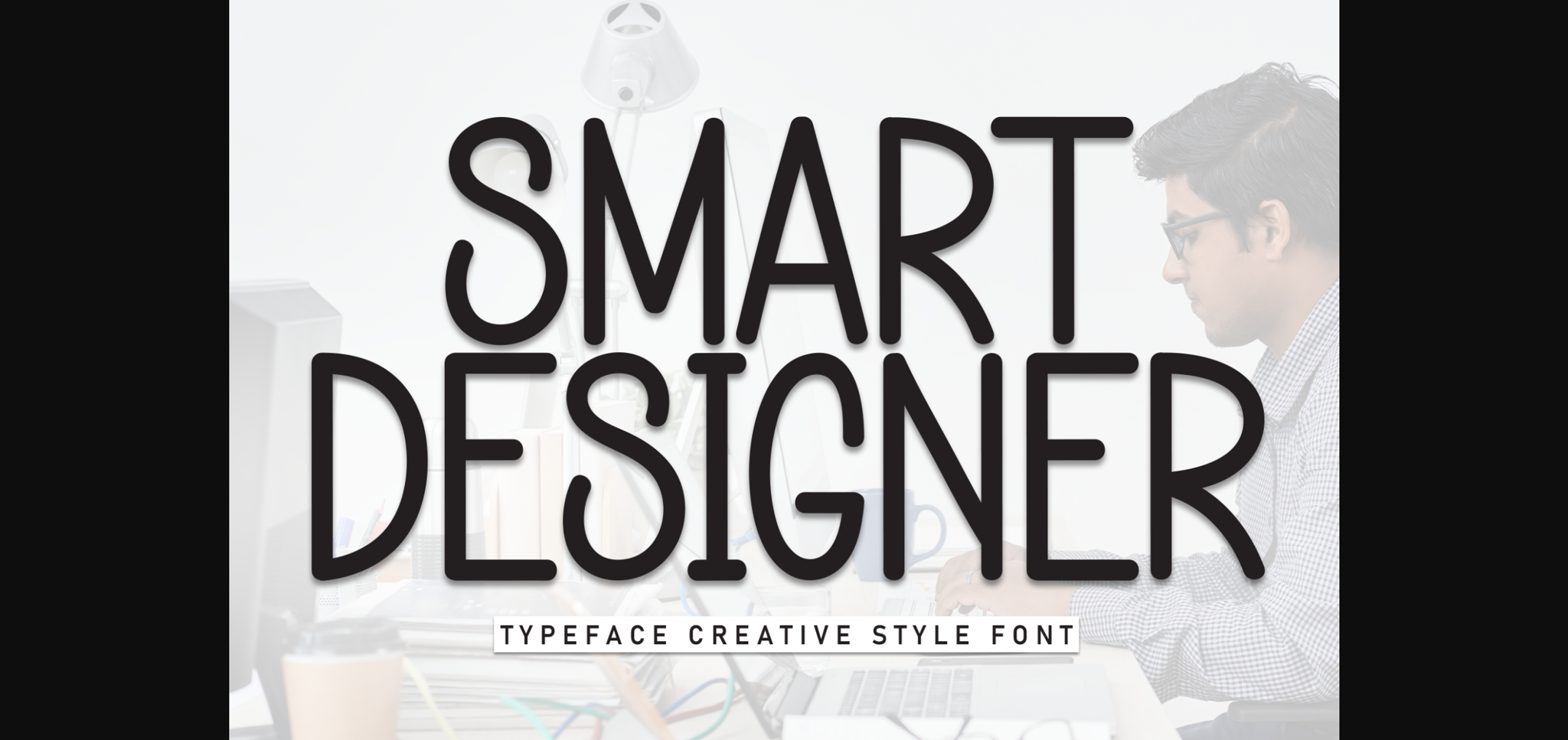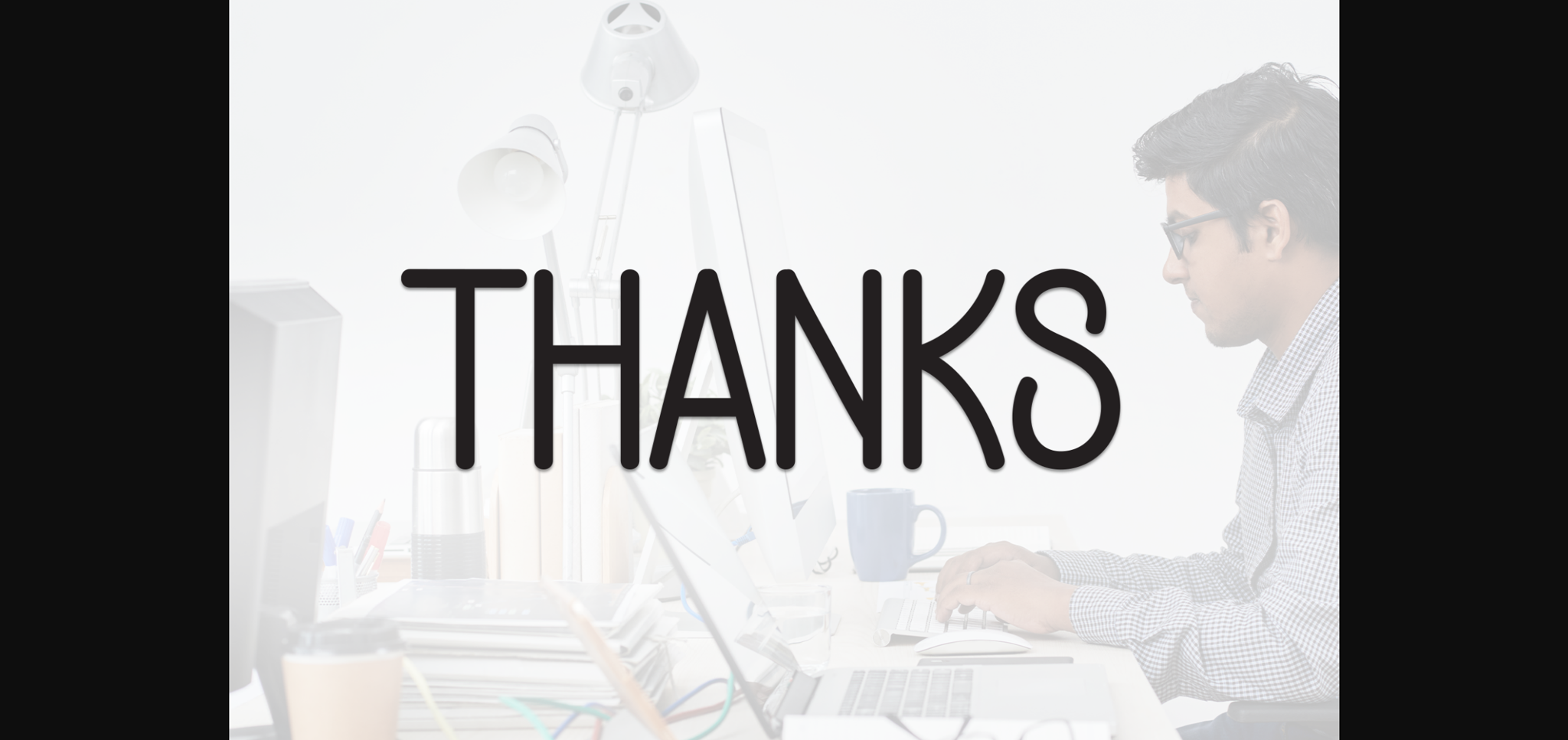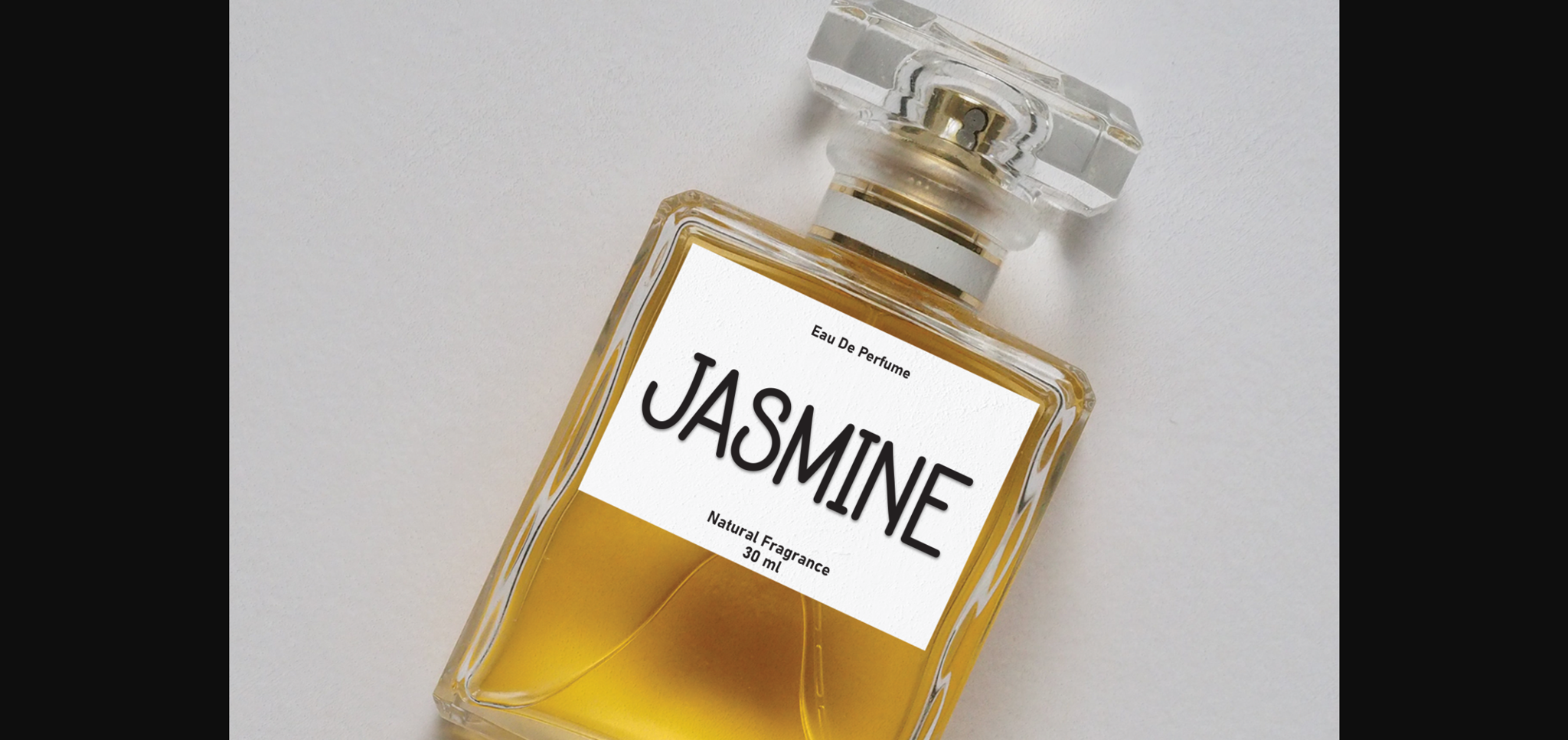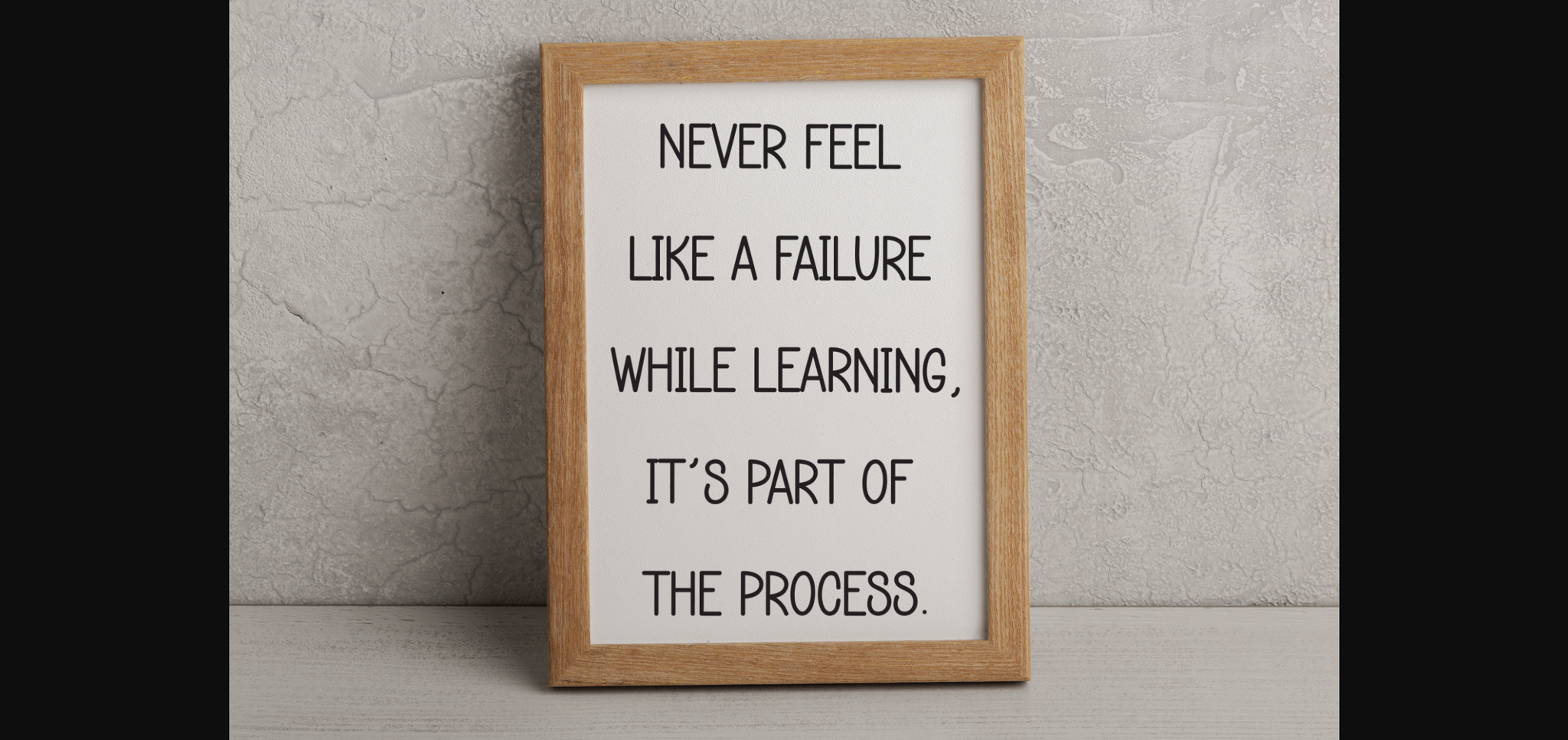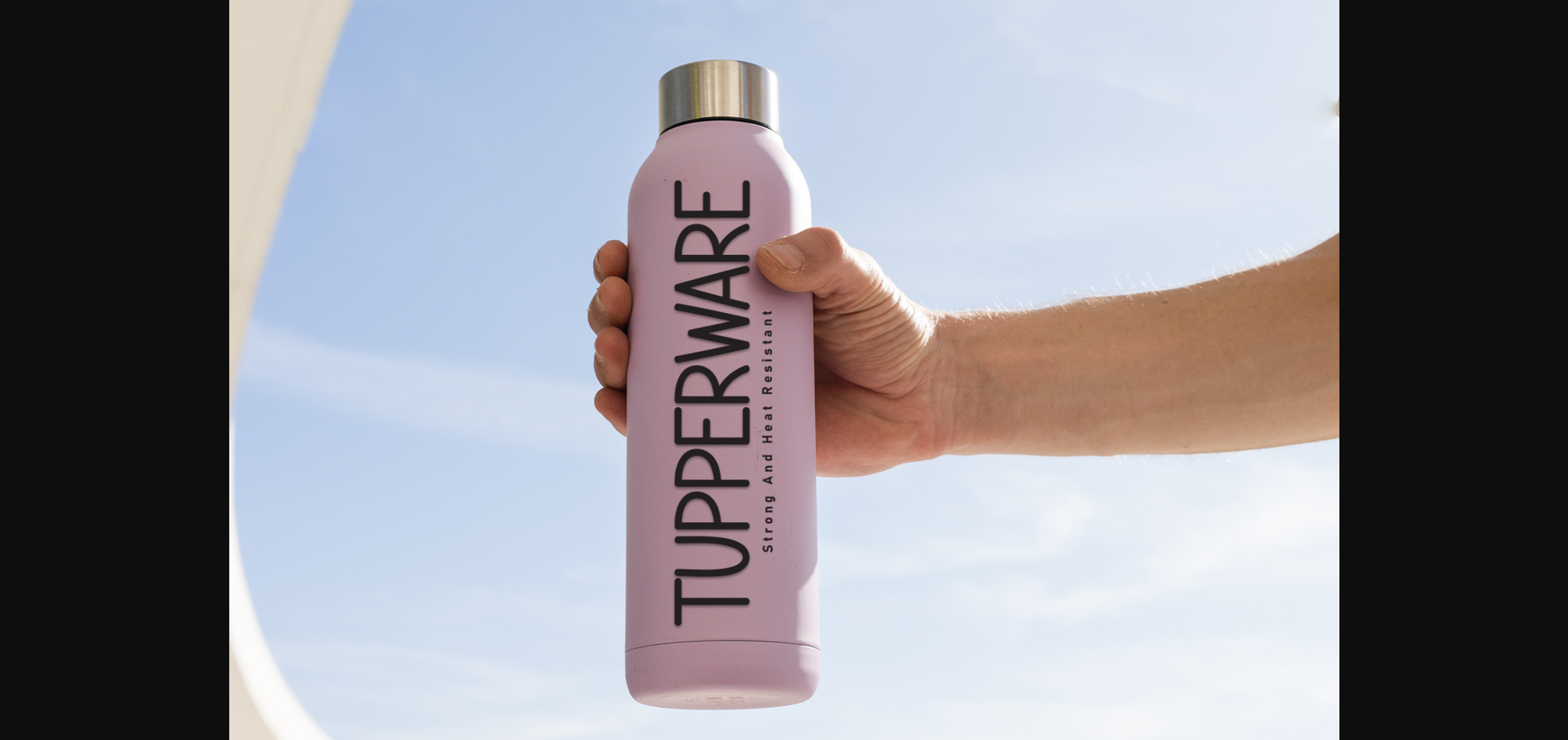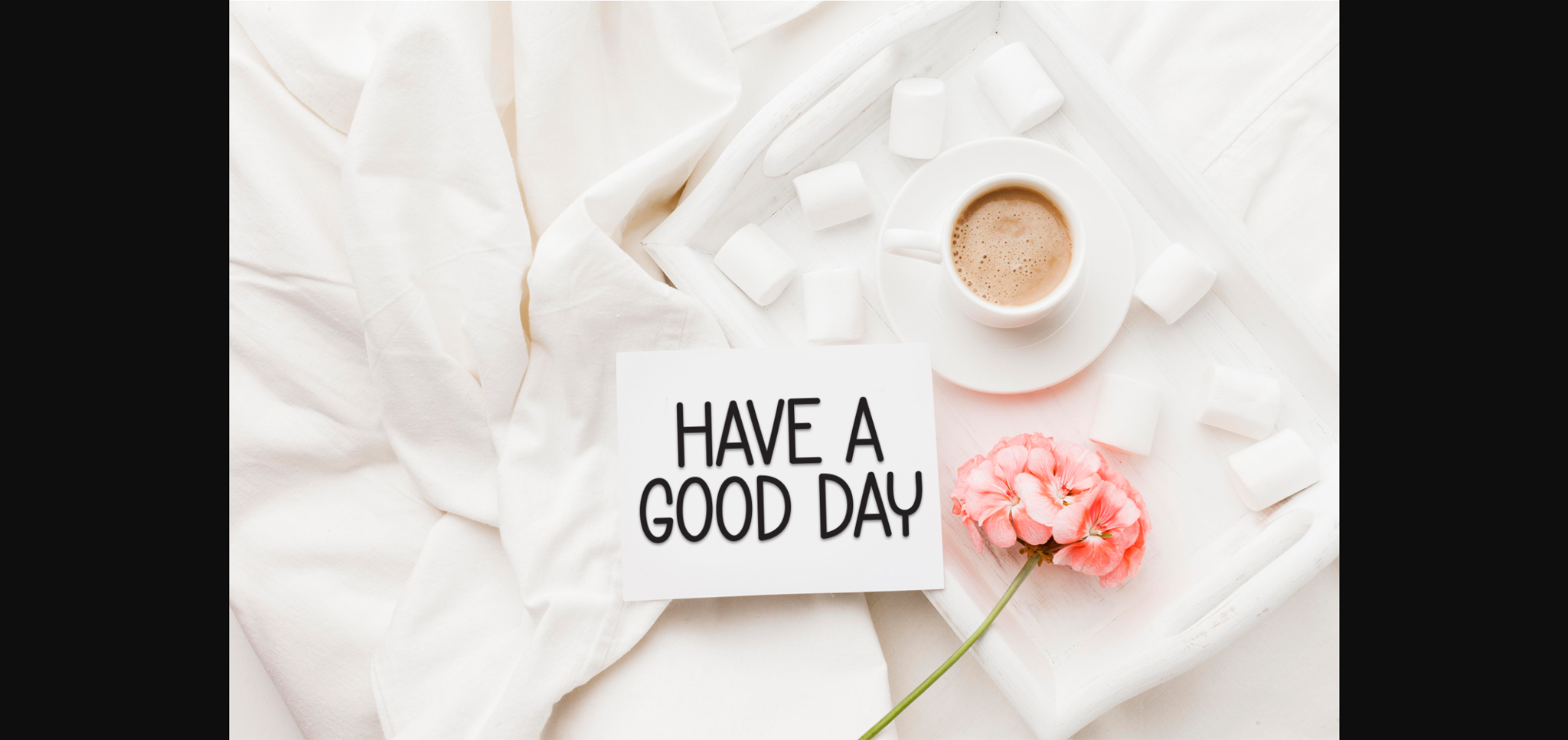
Smart Designer Font
About Smart Designer Font
Smart Designer is a sweet and friendly sans-serif font. Cute and versatile this font is ideal for writing wedding invitations, cards, or any other design that might need a fun touch!